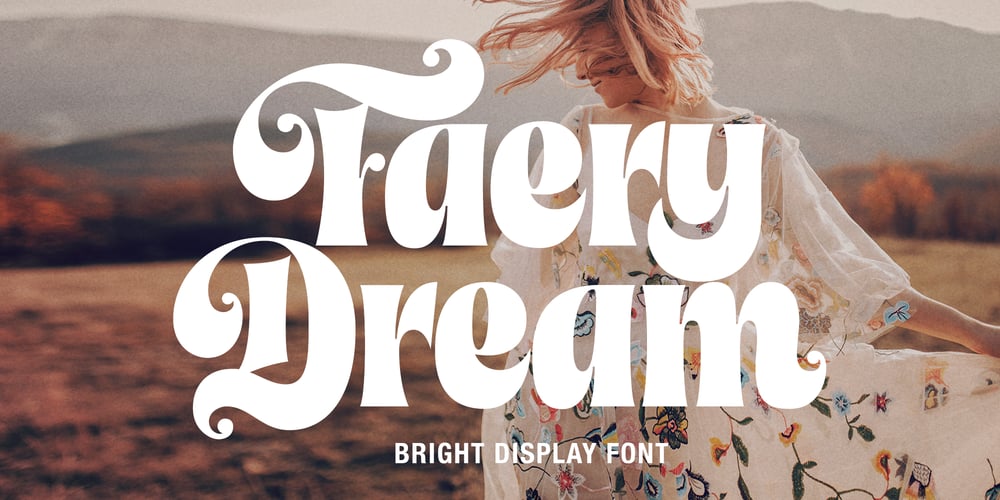
Faery Dream
Faery Dream font
Faery Dream Font Family was designed by Andrey Sharonov and published by Andrey Sharonov. Faery Dream contains 2 styles and family package options. Faery Dream is a modern high-contrast display font with bright positive character. Clean forms and a bit curly letter ends creates a friendly mood in any designs.It comes with Regular and Oblique version, Opentype features (stylistic alternates and standard ligatures). The easiest way to get alternate is to add number after character (for example A2, A3) or add Underscore after end character (for example a_ r_). The full set of alternates you can find in font presentation.Faery Dream Display is perfect for headlines, magazines, logotypes, food package, advertising and many others.Multilingual Support: Danish, Dutch, English, Estonian, Faroese, Finnish, French, German, Hungarian, Icelandic, Italian, Norwegian, Polish, Portuguese, Slovene, Spanish, Swedish, Turkish.